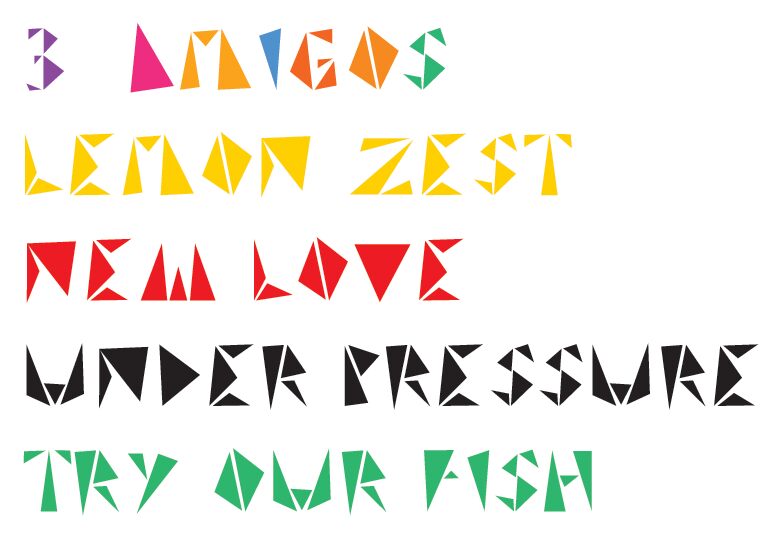
TRINISTA GRF by Gavin Fiorina is a free futuristic font of sharply fractured capitals and machine-cut silhouettes. Tall wedges, sliced diagonals, and triangular openings recur throughout, with abrupt shifts between broad black masses and needle-thin points that leave irregular white cuts inside several letters.
For science-fiction game interfaces and electronic music posters, the severe geometry feels technical, yet the same shard-like construction also suits experimental fashion branding and angular merchandise graphics. In publishing, it can turn a magazine feature or speculative-fiction page into a piece of angular artwork that echoes fractured architecture and abstract collage rather than neutral type.